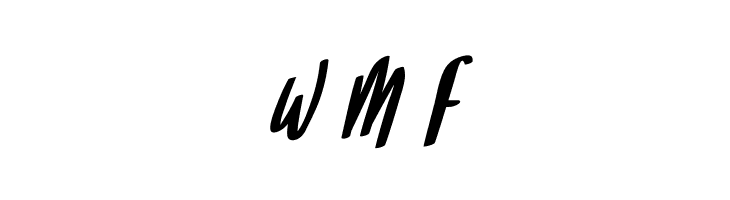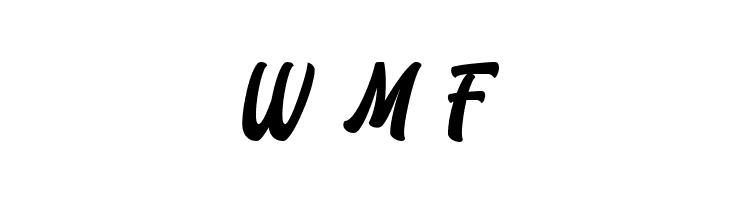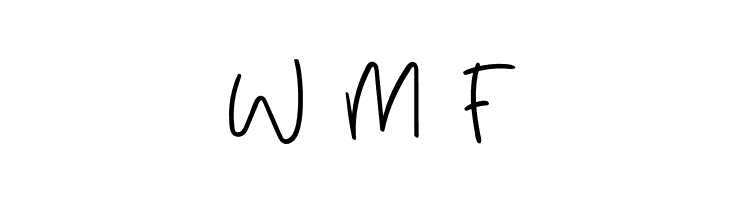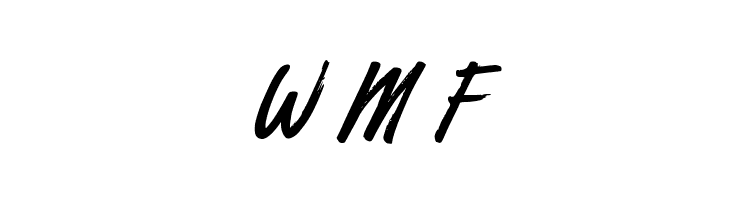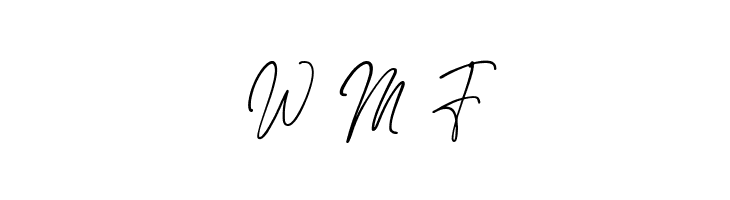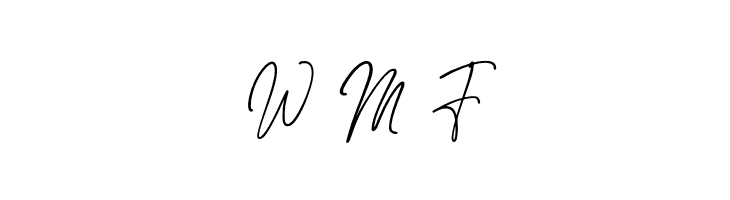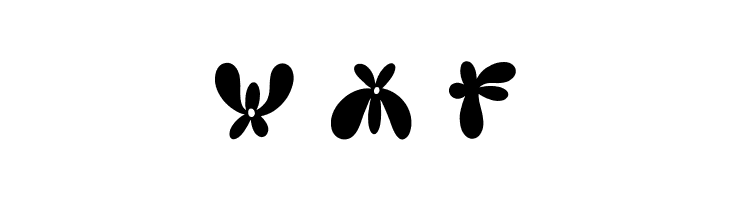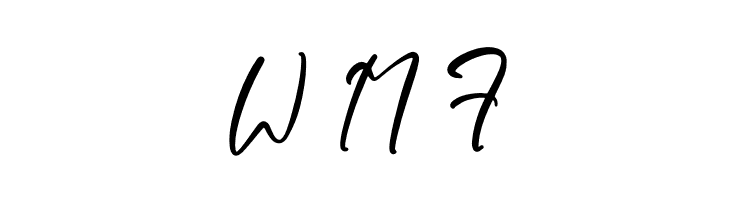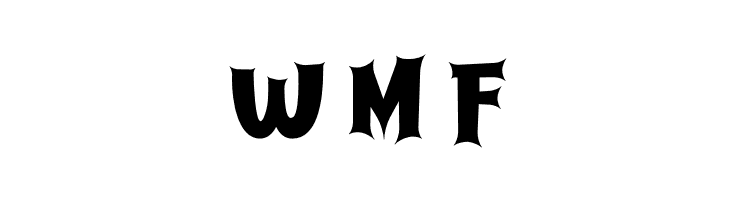
• Burning Sun Demo Italic
A bold, italicized handwritten font with a dynamic and expressive style.
• Burst Flower Regular
A playful, flower-inspired decorative font with bold, organic shapes.
• Burtons Ghoster
A lively and expressive handwritten font with fluid, dynamic strokes.
• Buryland Script Regular DEMO
An elegant script font with flowing, cursive letters and a classic appearance.
• Business Signature
A modern, elegant handwritten font with flowing, connected letterforms.
• BusMatrix Condensed Condensed
A dot matrix style font with a retro digital aesthetic, featuring condensed, pixelated characters.
• BusMatrix Condensed Condensed
A dot matrix style font with a retro digital display look.
• Bustercall
A cursive, handwritten-style font with smooth, flowing strokes.
• Bustercall
A modern, elegant script font with a fluid, handwritten style.
• Busther
A bold, brush-style script font with dynamic and expressive strokes.
• Busy-Bee
A playful, bold font with a hand-drawn, whimsical style.
• Busy-Bee
A bold, playful font with a cartoon-like style and rounded characters.
• Butchery
A bold, flowing script font with smooth, cursive letters and a robust appearance.
• Buterfly
A playful, handwritten font with fluid strokes and a casual style.
• ButnerDEMO-Butner
A dynamic and playful handwritten font with bold, expressive characters.